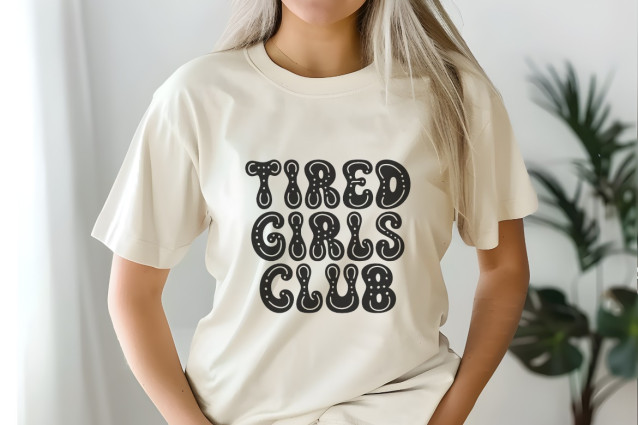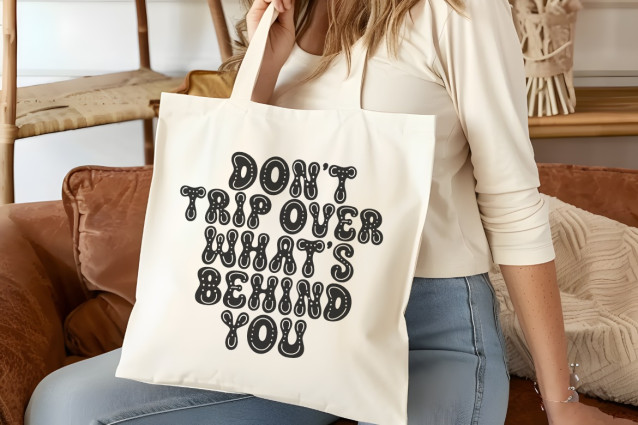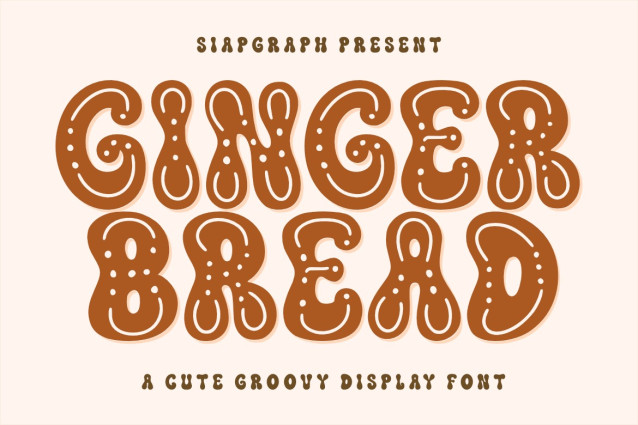
Ginger Bread Display Font
Ginger Bread Display Font is a cute groovy font that brings a fun, nostalgic vibe to your creative projects. Its thick strokes and playful curves make it perfect for adding a vintage flair to any design.